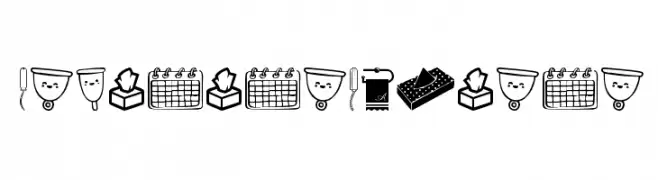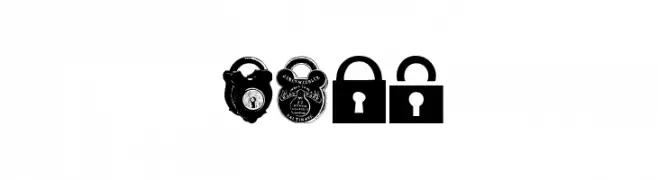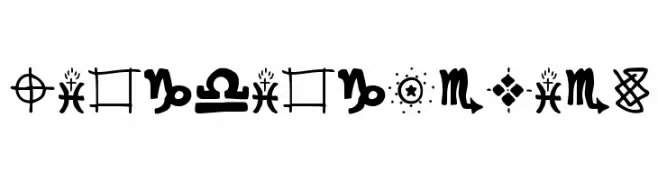
Icon-based font featuring diverse watch and clock illustrations.
A decorative symbol font with diverse pictograms and playful illustrations.
Hand-drawn decorative font with feminine hygiene and self-care icons.
A dingbat font of assorted lock and padlock icons in various styles.
Bold winter icon set with solid black silhouettes.
A bold pictogram font with laundry and wash-care symbols.
Bold pictogram set with a mafia and crime theme.
A bold pictogram font of library and book-themed icons.
A pictographic icon set themed around cleaning and housekeeping.
Bold, decorative farm-themed icon set with clear silhouettes.